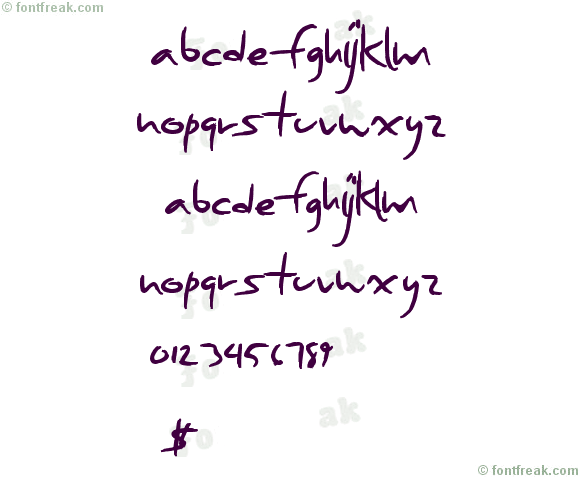
SeasonFourteen
About SeasonFourteen
SeasonFourteen by Xerographer Fonts is a captivating handwritten typeface that exudes a charming, relaxed vibe. This font stands out with its playful yet elegant strokes, characterized by a medium stroke weight that balances softness and legibility. The letters exhibit a delightful irregularity, mimicking natural handwriting, which adds a personal touch to any project. The spacing between characters is thoughtfully designed, allowing for easy readability while maintaining a cohesive appearance. With its unique quirks and organic flow, SeasonFourteen serves as a versatile choice for designers seeking to infuse their work with warmth and character.
Ideal use cases for the SeasonFourteen font include wedding invitations, where its romantic flair can set the tone for a special day. It also shines in crafting eye-catching greeting cards, adding a heartfelt element to personal messages. For small businesses, this font is perfect for restaurant menus, creating an inviting atmosphere that entices diners. Additionally, it can be effectively utilized in social media graphics, helping content creators capture attention with a friendly, approachable style.
The target audience for SeasonFourteen encompasses graphic designers, small business owners, and content creators who aim to enhance their visual communication with a distinctive, handwritten touch. This font caters to those who appreciate creativity and individuality in their work.
What truly sets SeasonFourteen apart is its ability to blend casual elegance with functionality. The combination of its unique visual characteristics and versatility makes it an excellent choice for a wide range of design projects. Whether you're looking to create something personal or professional, the SeasonFourteen font free download offers an exceptional tool for bringing your creative vision to life.